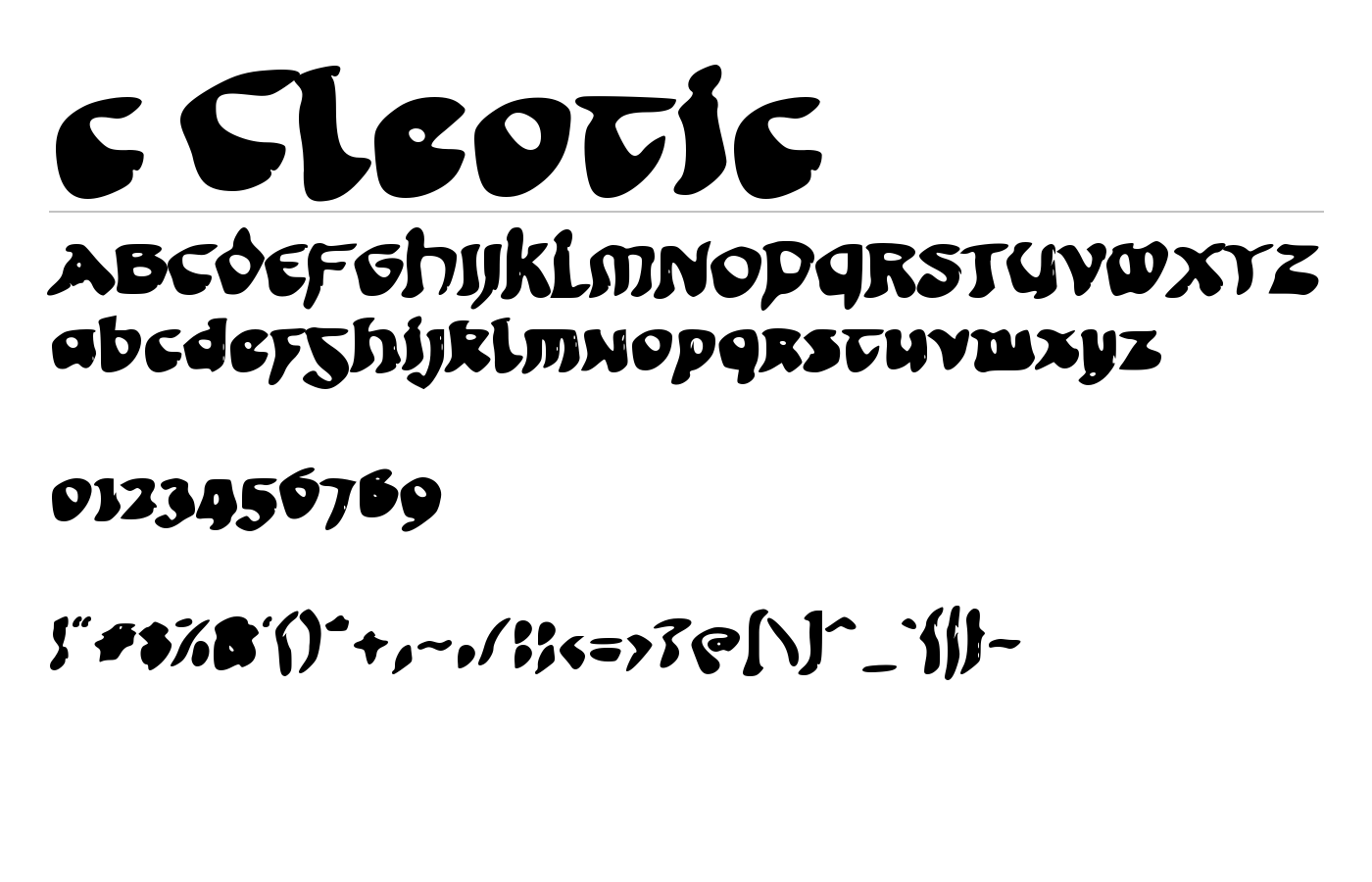
Cleotic is a bold, playful display font with an organic, hand-drawn feel that blends thick, rounded shapes with a quirky, irregular style. Its unique letterforms and high contrast create a lively, artistic vibe that works well for creative projects, posters, and branding aiming for a fun, unconventional personality. This font shines in eye-catching headlines or logos where a distinctive, expressive touch is desired.
c Cleotic Font
About c Cleotic Font